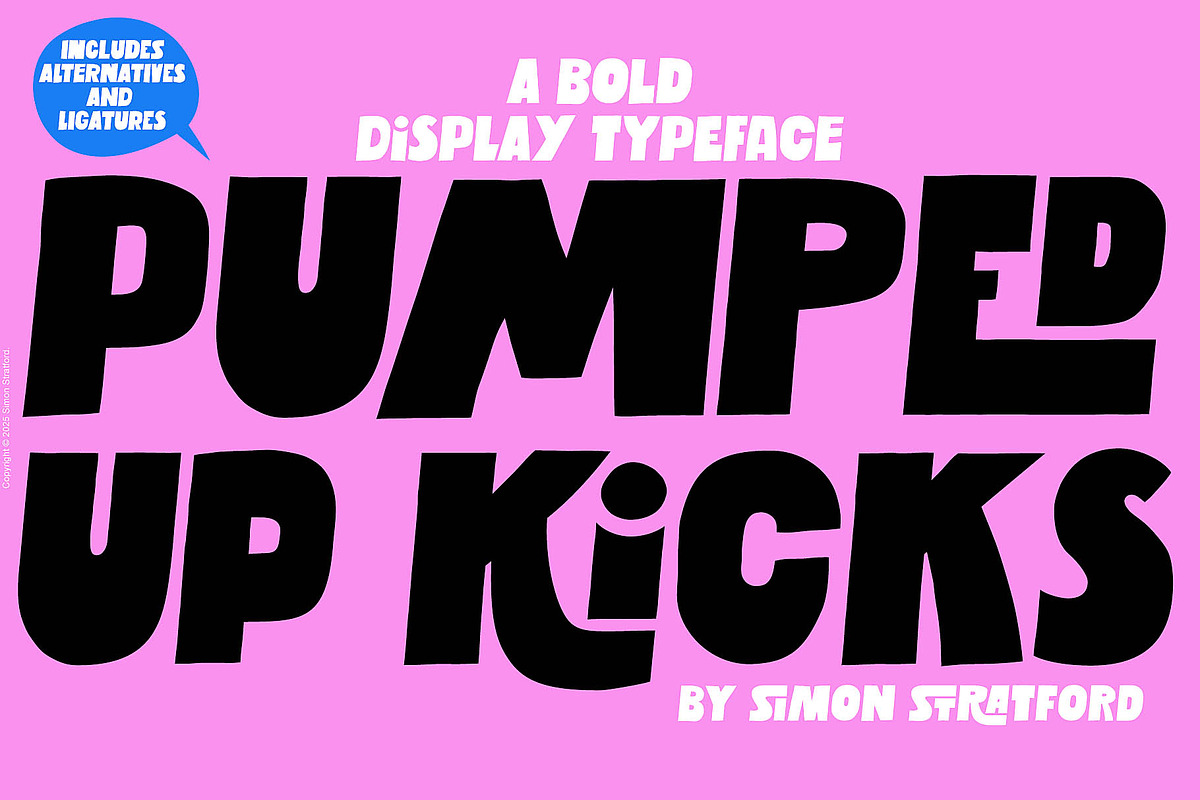
Pumped up kicks display font
Get ready to electrify your projects with Pumped Up Kicks – a high-energy, handcrafted sans-serif display font that doesn’t just grab attention… it demands it. Designed for bold creatives who refuse to blend in, this dynamic typeface combines explosive personality with flawless functionality. Every character pulses with rhythm and attitude, making it the definitive choice for any project that needs to stand out in a crowded visual world.
Bold, Unapologetic Energy – Designed to Command Attention
Pumped Up Kicks isn’t about subtle elegance – it’s about impact. With its exaggerated strokes, uneven baseline, and dynamically tilted letterforms, this font breaks free from conventional structure to deliver an unfiltered burst of creative energy. Some letters extend above the ascender line, others dive below the baseline, creating intentional visual tension and movement. This deliberate irregularity isn’t a flaw – it’s the core of the font’s character, giving it a raw, hand-painted feel that feels alive and full of motion.
• Maximum Visual Impact: Bold, oversized characters that dominate any layout, perfect for headlines, posters, and branding statements.
• Lively, Handcrafted Aesthetic: Subtle asymmetry and uneven lines mimic real hand-drawn art, adding authenticity and charm.
• Full Uppercase Power: Crafted exclusively in uppercase to maximize visual strength and consistency.
Unleash Customization: 200+ Stylistic Alternates & Dynamic Ligatures
Why settle for a single version of a letter when you can unleash a whole arsenal of alternatives? Pumped Up Kicks ships with an extensive set of stylistic variations, giving you unprecedented control over your typographic expression.
• 3–7 Style Alternates per Letter: Each letter from A to Z offers multiple unique versions. For example, use a jagged A for intensity, a rounded A for playfulness, or a spiked A for rebellion – the choice is yours.
• 15+ Custom Ligatures: When specific letter combinations appear (like “LO”, “RA”, “ME”, “UP”), they automatically transform into hand-designed, unique glyphs. These aren’t just decorative – they’re storytelling tools that add personality and cohesion to your text.
Master Your Narrative with Versatile Typography
Whether you’re designing a music festival poster, crafting a bold brand identity, or launching a limited-edition merchandise line, Pumped Up Kicks transforms your message into a statement. Its energetic vibe is perfectly suited to youth culture, pop art, retro futurism, and any project that thrives on fun, movement, and surprise.
• Branding & Logos: Create unforgettable brand identities that feel authentic, energetic, and instantly recognizable.
• Posters & Flyers: Command attention at concerts, events, or art shows with posters that scream excitement.
• Packaging & Merchandise: Elevate t-shirts, bags, and product boxes with bold, eye-catching text that sells the vibe.
• Social Media & Digital Graphics: Make your posts pop with high-impact text that stops the scroll.
• Content Titles & Banners: Use in blog headers, YouTube thumbnails, and website banners to grab clicks and drive engagement.
Pumped Up Kicks isn’t just about looks – it’s built for real design workflows.
Design with Fire. Create with Purpose. Stand Out.
Don’t just make text – make a statement. With Pumped Up Kicks, every letter punches above its weight. It’s not just a font; it’s a movement. Whether you’re a designer, artist, marketer, or brand builder, this is the typeface that turns your vision into a viral sensation.